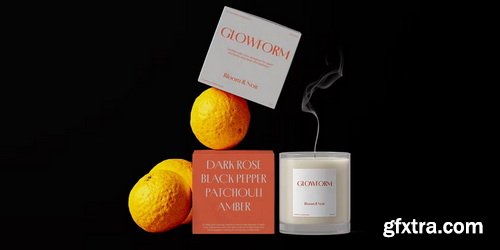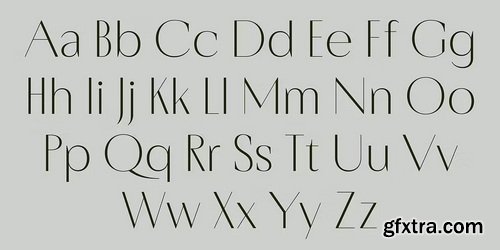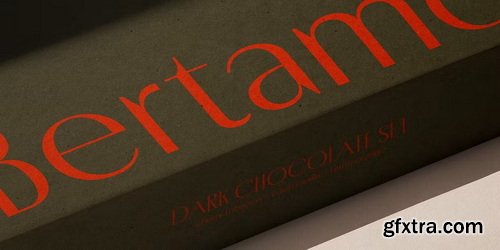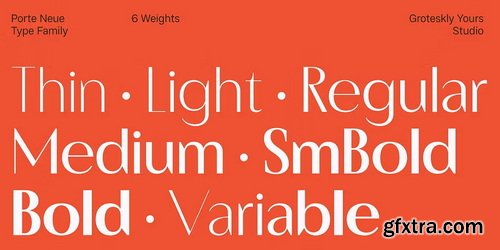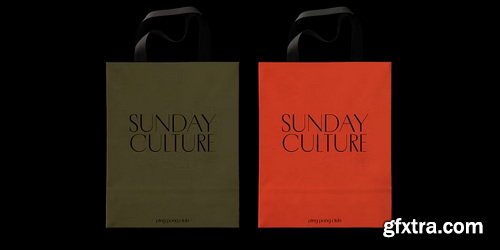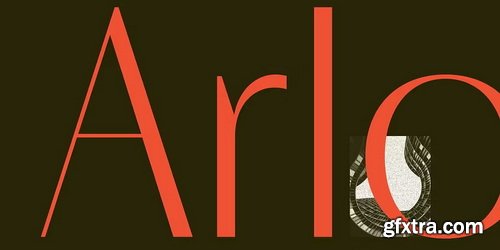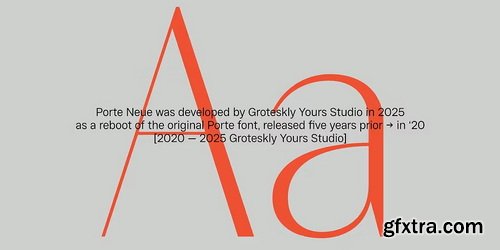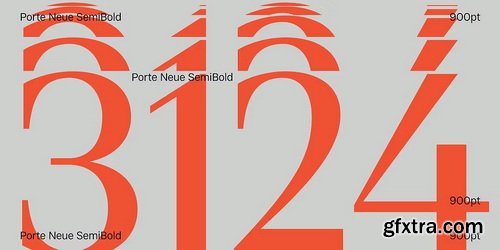
- Porte Neue is an elegant font family in 6 styles, released by Groteskly Yours Studio. Originally released as Porte in 2019, this updated 2025 version refines its classic outlines while expanding the family to six styles plus a variable font. Inspired by Eastern European stone-carved plaques, Porte Neue blends sharp contrast, sans serif font structure, and luxury aesthetic into a striking yet contemporary design.
- Designed as a elegant font for branding, editorial design, and standout headlines, Porte Neue offers refined proportions, alternate narrow characters, and extensive Latin and Cyrillic language support. With improved consistency, balanced rhythm, and enhanced diacritic integration, Porte Neue is a versatile type family that brings sophistication and elegance to modern typography.
- Porte Neue is available in 6 sans serif font styles and a variable cut. It supports over 200 languages, including Latin and Cyrillic scripts, making it a great choice for designers who want elegance and typographic versatility.